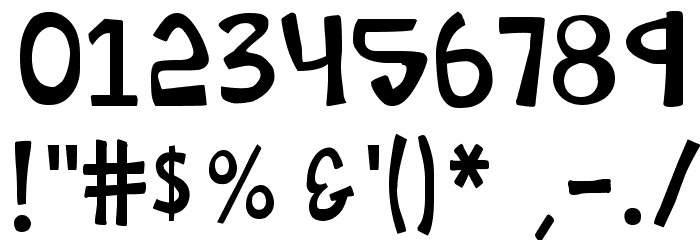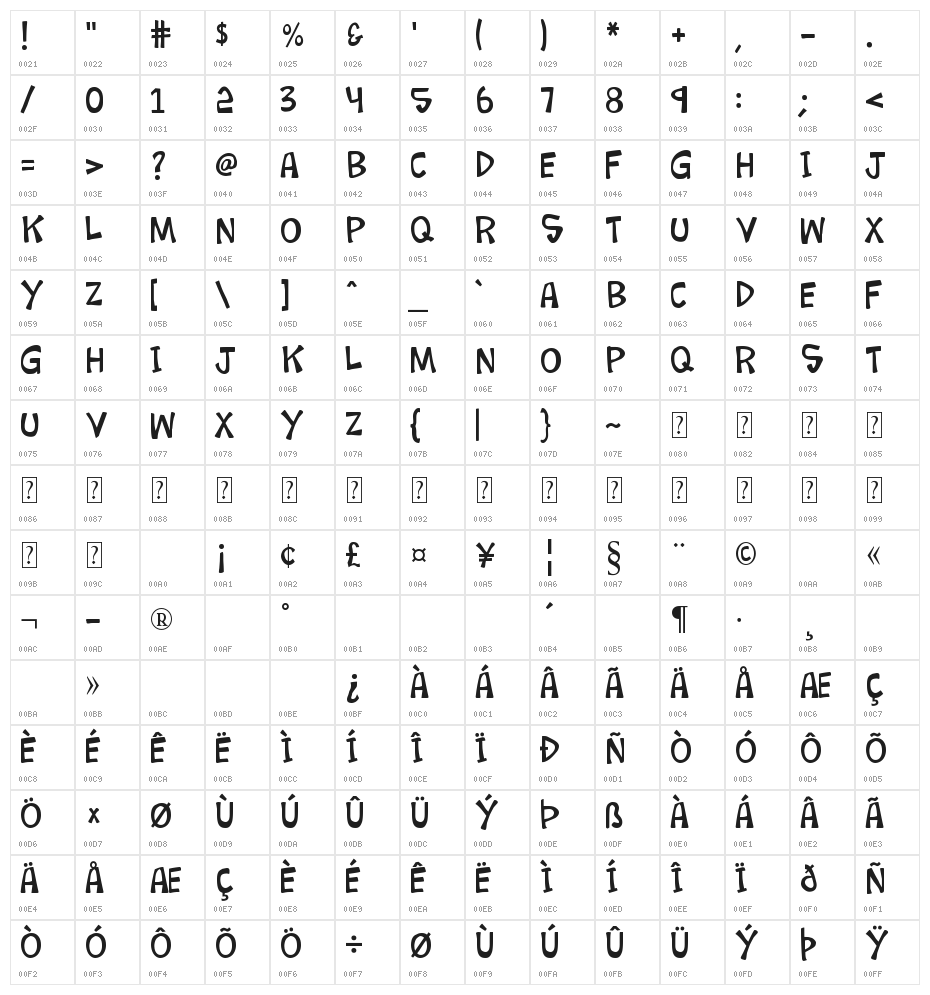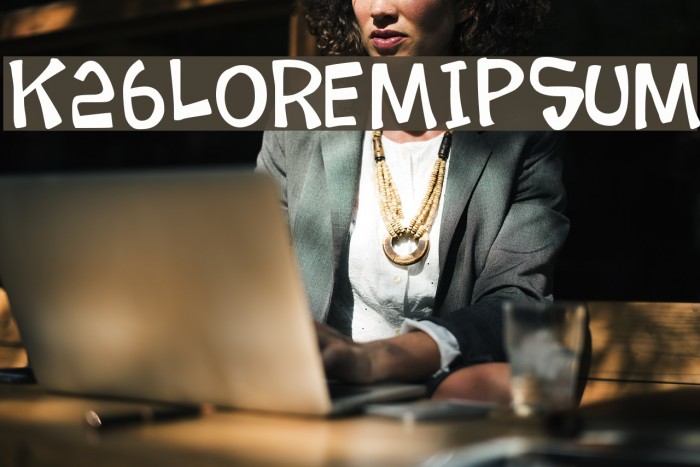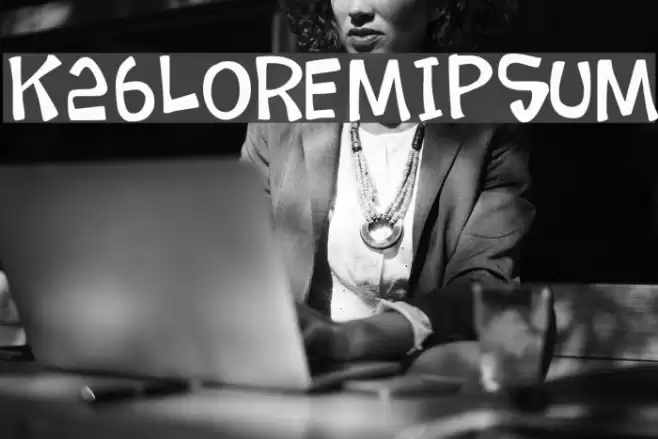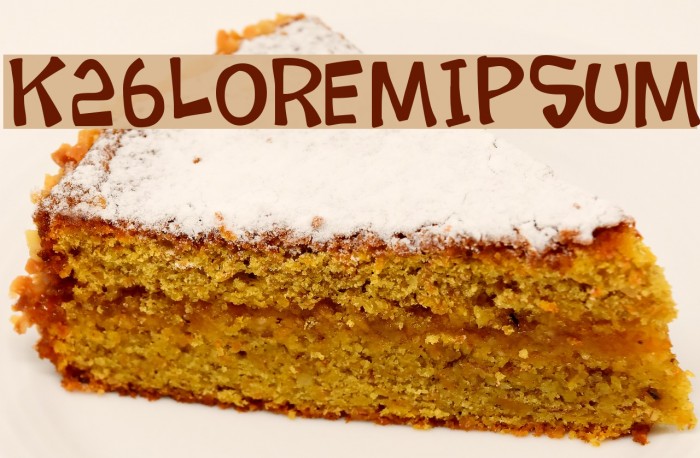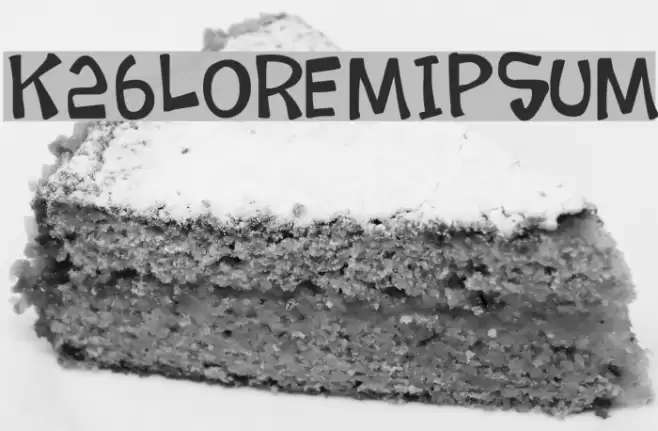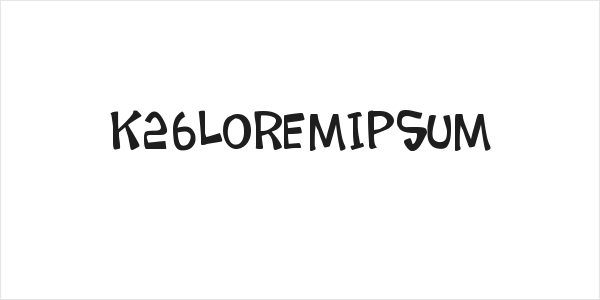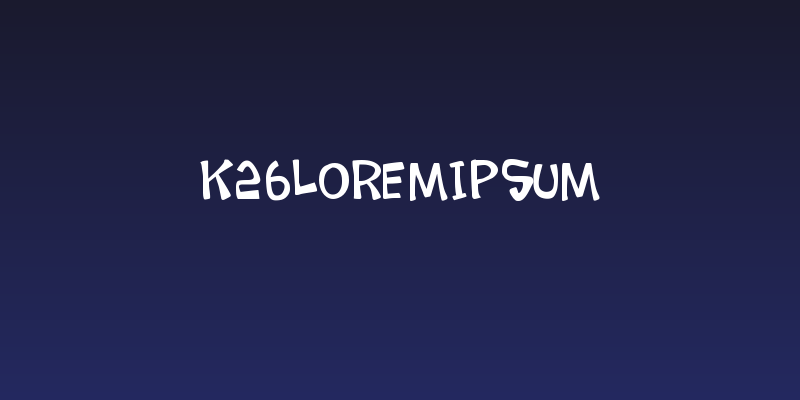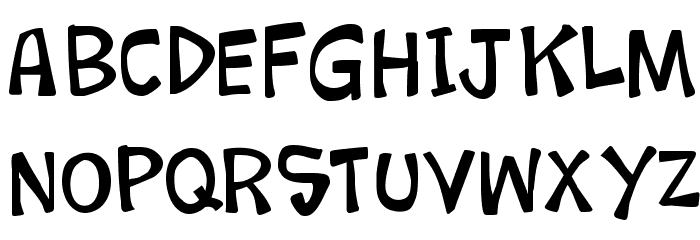
K26LoremIpsum Font
K26LoremIpsum Description
This playful and energetic font features bold, rounded characters with a hand-drawn aesthetic. The uppercase and lowercase letters are consistent in style, with a slight tilt that adds a dynamic feel. The numbers and special characters maintain the same whimsical quality, making the font ideal for projects that require a fun and informal touch. The strokes are thick and uniform, providing a strong visual impact without sacrificing readability. This font is perfect for children's books, comic strips, or any creative project that seeks to convey a sense of joy and spontaneity.
| Proposed Projects | Children's books, comic strips, playful branding, greeting cards, and informal invitations. |